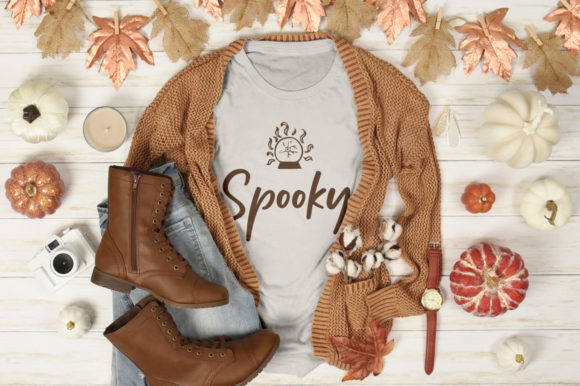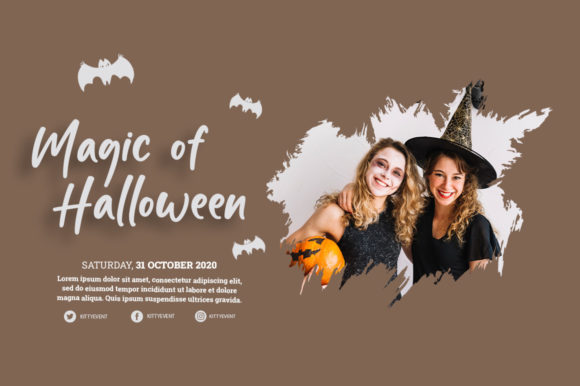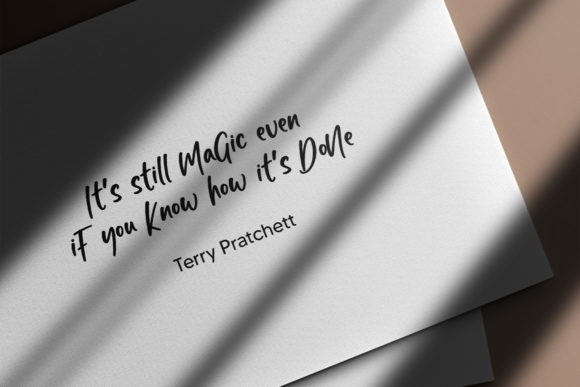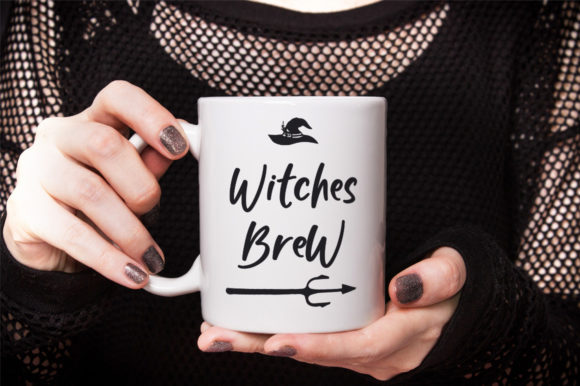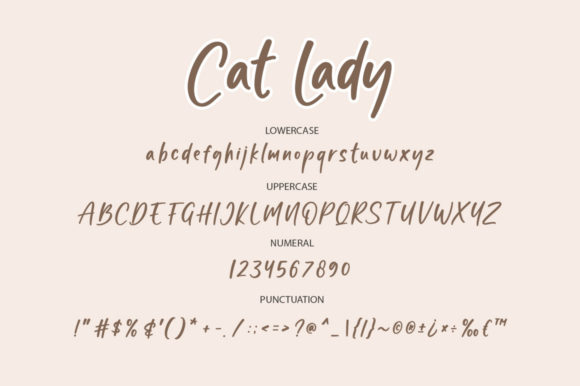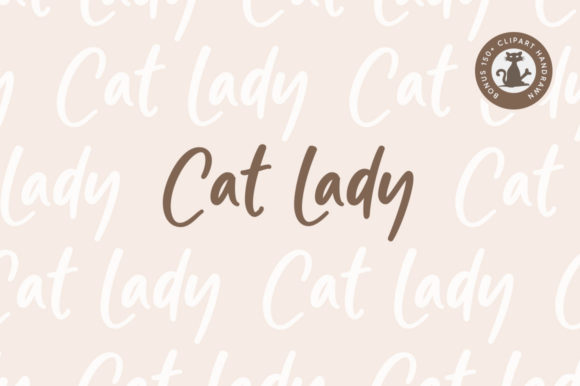
Introducing Cat Lady Font: The Purrfect Addition to Your Design Collection
Are you a designer or crafter looking for a unique and captivating font to elevate your creative projects? Look no further than the Cat Lady Font, a thin lettered and cute script font that is sure to steal your heart. With its ravishing style and versatility, this font is perfect for creating stunning wedding invitations, beautiful stationery art, eye-catching social media posts, and much more.
What Makes Cat Lady Font So Special?
The Cat Lady Font is a one-of-a-kind script font that boasts a delicate and feminine touch, making it ideal for designs that require a touch of elegance and sophistication. Its thin lettering and cursive flow create a sense of movement and fluidity, adding a dynamic feel to any project. Whether you’re designing for a wedding, a brand, or simply for fun, this font is sure to impress.
Uses for Cat Lady Font
The possibilities are endless when it comes to using the Cat Lady Font. Here are just a few ideas to get you started:
• Wedding Invitations: Create beautiful and unique wedding invitations that set the tone for a stylish and memorable celebration.
• Stationery Art: Design gorgeous stationery art, including greeting cards, thank you cards, and journals, that showcase your creativity and attention to detail.
• Social Media Posts: Make your social media posts stand out with eye-catching graphics and captions that feature the Cat Lady Font.
• Branding: Use the Cat Lady Font to create a cohesive brand identity that exudes elegance and sophistication.
• Crafting: Add a personal touch to your crafting projects, such as scrapbooking, DIY jewelry, and home decor, with this charming font.
Why Designers and Crafters Love Cat Lady Font
Designers and crafters alike will fall in love with the Cat Lady Font for several reasons:
• Unique Style: The Cat Lady Font offers a distinctive and stylish alternative to traditional fonts, allowing designers and crafters to create truly one-of-a-kind projects.
• Ease of Use: This font is easy to read and works well in a variety of sizes, making it perfect for both digital and print applications.
• Versatility: The Cat Lady Font can be used for a wide range of projects, from formal wedding invitations to playful social media graphics.
• High-Quality: This font is designed with high-quality and clarity in mind, ensuring that your projects look professional and polished.
Tips for Using Cat Lady Font
To get the most out of the Cat Lady Font, here are a few tips to keep in mind:
• Pair with Other Fonts: Combine the Cat Lady Font with other fonts to create a unique and visually appealing contrast.
• Experiment with Colors: Try out different colors and textures to add depth and interest to your designs.
• Play with Sizes: Use the Cat Lady Font in a variety of sizes to create visual hierarchy and emphasis.
• Add Decorations: Consider adding decorations, such as flowers or illustrations, to enhance your designs and make them more eye-catching.
In conclusion, the Cat Lady Font is a must-have addition to any designer’s or crafter’s collection. With its unique style, versatility, and high-quality design, this font is perfect for creating a wide range of projects, from wedding invitations to social media graphics. So why wait? Fall in love with the Cat Lady Font and start creating stunning designs today!